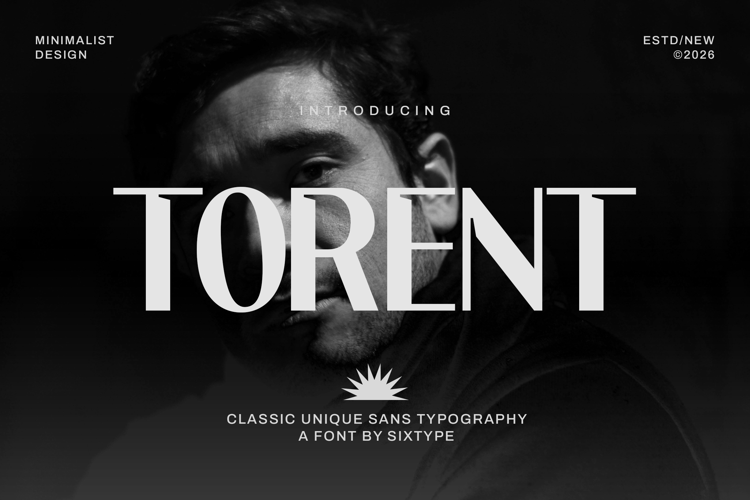
Torent - Font
Torent is a contemporary sans serif typeface that seamlessly blends minimalist precision with subtle classic elegance. Its bold yet refined letterforms establish a strong visual presence while ensuring a clean, sophisticated balance. This typography possesses a timeless quality, enhanced by slightly stylized curves and distinctive details that infuse personality without compromising clarity. Perfect for branding, architecture, editorial layouts, and high-end visual identities, Torent offers a confident, modern aesthetic with a refined edge. Whether utilized for striking headlines or polished compositions, it evokes a sense of structure, elegance, and enduring style, making it an excellent choice for various design applications.